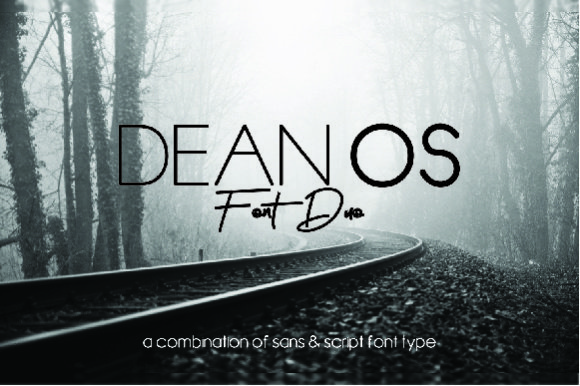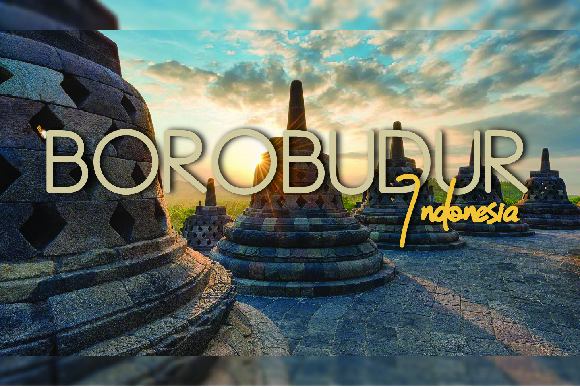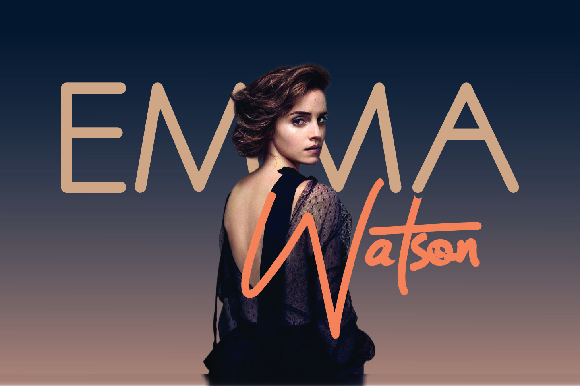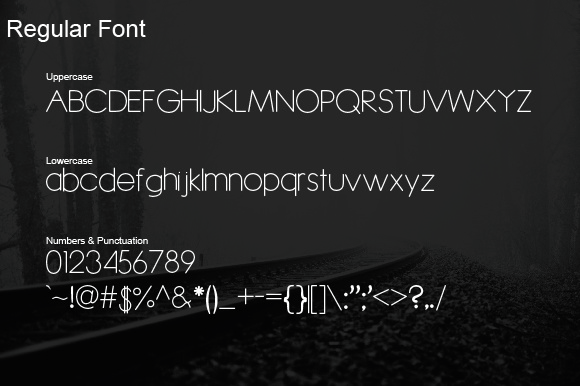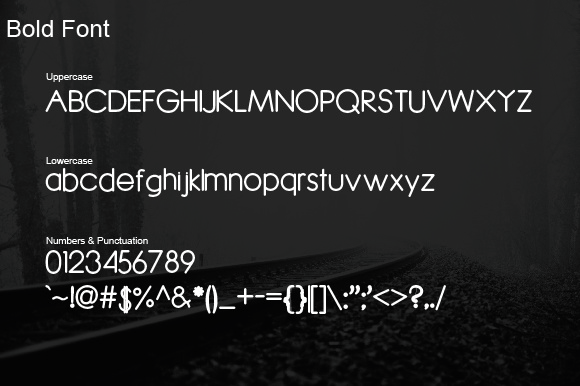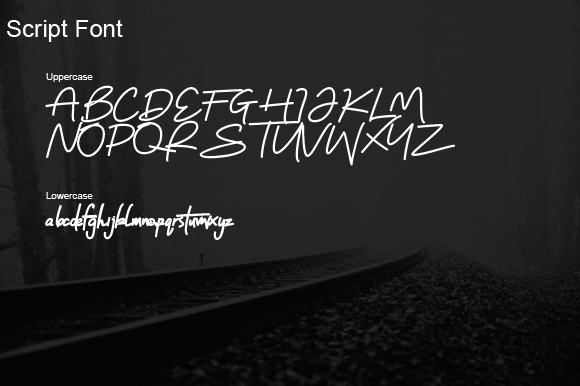
Discover the Perfect Blend: Dean Os Duo Font
Have you ever been stuck in front of a blank canvas, searching for the perfect font to bring your creative vision to life? We’ve all been there, pouring over endless options, desperate to find the one that captures the essence of our design. And then, like a breath of fresh air, you stumble upon the perfect combination – a harmonious blend of sans and script that elevates your project to new heights.
Meet Dean Os Duo Font, a versatile and charming typeface designed to bring a touch of personality to your designs. With its elegant script and clean sans lines, Dean Os Duo Font is the ultimate go-to for designers seeking to add a handwritten look to their projects. Whether you’re crafting a logo, designing wedding invitations, or creating stationery, this font is the perfect companion to help you achieve your creative goals.
Dean Os Duo Font Key Features
- Font Family: Dean Os Duo Font is a sans-serif typeface designed for use in digital and print media.
- Pixel Size: Designed for use at small pixel sizes (12-24px), making it ideal for digital interfaces and user interfaces.
- Resolution: Optimized for use at high resolutions (Retina displays and above), ensuring crisp and clear text rendering.
- Unique Characteristics: Features a unique blend of modern and vintage design elements, with a distinctive x-height and letterform proportions.
Dean Os Duo Font Review
Dean Os Duo Font is a beautiful, modern sans-serif font designed for a variety of applications. I’ve had the pleasure of working with it, and I must say it’s a joy to use.
- The font’s versatility is impressive, making it suitable for both digital and print media.
- The clean and simple design makes it perfect for branding, logos, and advertising materials.
- The font’s legibility is top-notch, ensuring that your message is conveyed clearly to your audience.
- The font family includes a range of weights and styles, giving you plenty of options to choose from.
- The font may not be ideal for use in very small text sizes, as it can become difficult to read.
- The font’s simplicity may not be suitable for applications where a more complex or ornate design is required.
Overall, I’m thoroughly impressed with Dean Os Duo Font. It’s a well-designed, high-quality font that’s perfect for a wide range of applications. If you’re looking for a modern, versatile font that’s easy to use, Dean Os Duo Font is an excellent choice.
Dean Os Duo Font is perfect for creating:
– Modern and elegant typography
– Headings and titles for presentations and documents
– Custom graphics and illustrations
For optimal results, use Dean Os Duo Font in combination with other modern fonts and design elements. Experiment with different font sizes, colors, and styles to create visually appealing designs.
Alternatives to Dean Os Duo Font
Playfair Display is an elegant and luxurious serif font ideal for high-end designs, such as luxury brands, weddings, and special occasions. It features beautiful connections between letters and a classic feel.
Comparison to Dean Os Duo Font: While Dean Os Duo Font is a modern and clean sans-serif font, Playfair Display offers a more traditional and ornate look, making it a better choice for designs that require a touch of sophistication and elegance.
Montserrat is a geometric sans-serif font designed for urban environments. It is highly legible and versatile, making it suitable for a wide range of designs, from corporate identities to digital interfaces.
Comparison to Dean Os Duo Font: Montserrat is a more modern and urban font compared to Dean Os Duo Font, which has a more minimalist and clean design. Montserrat is ideal for designs that require a strong, modern feel.
Merriweather is a classic serif font that is highly legible and suitable for body text. It features a traditional feel and is ideal for designs that require a touch of classic elegance.
Comparison to Dean Os Duo Font: Merriweather is a more traditional font compared to Dean Os Duo Font, which has a modern and clean design. Merriweather is ideal for designs that require a classic feel and high readability.